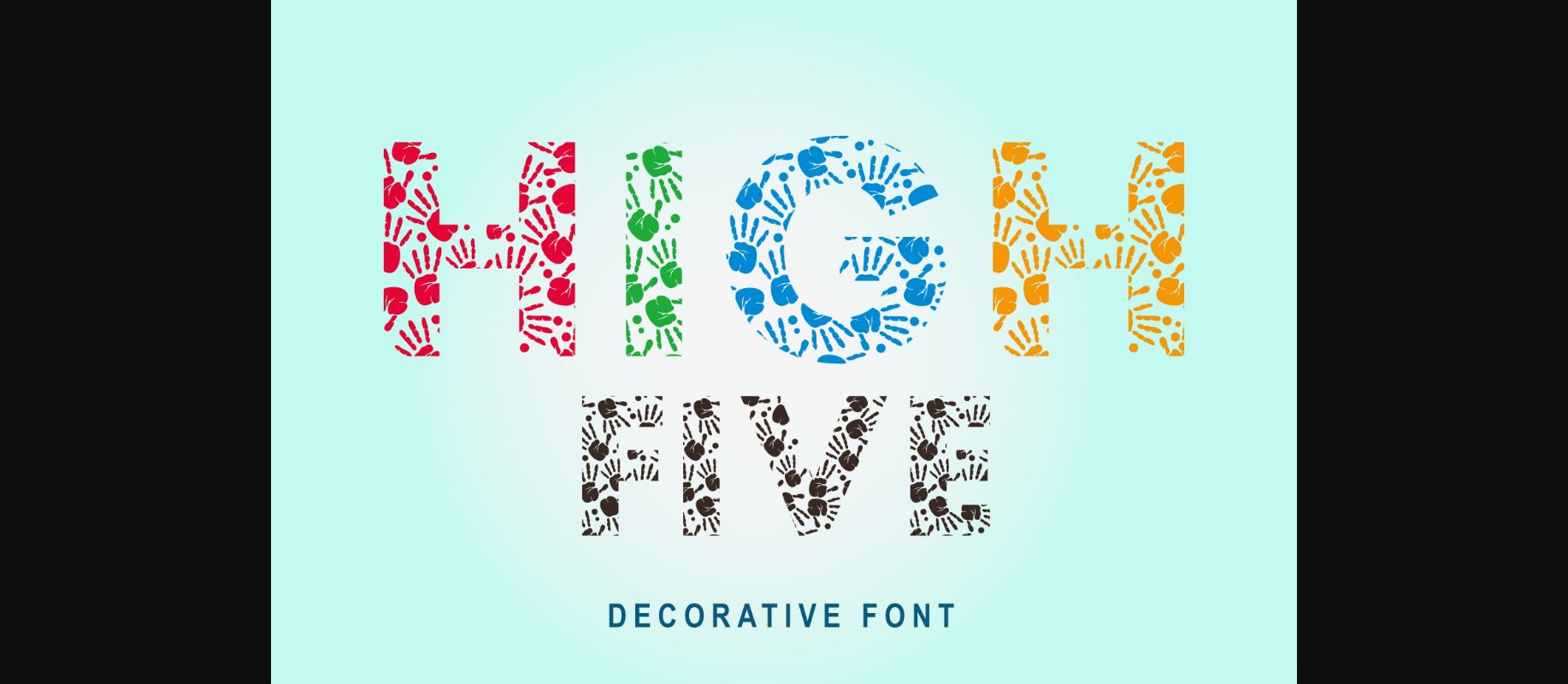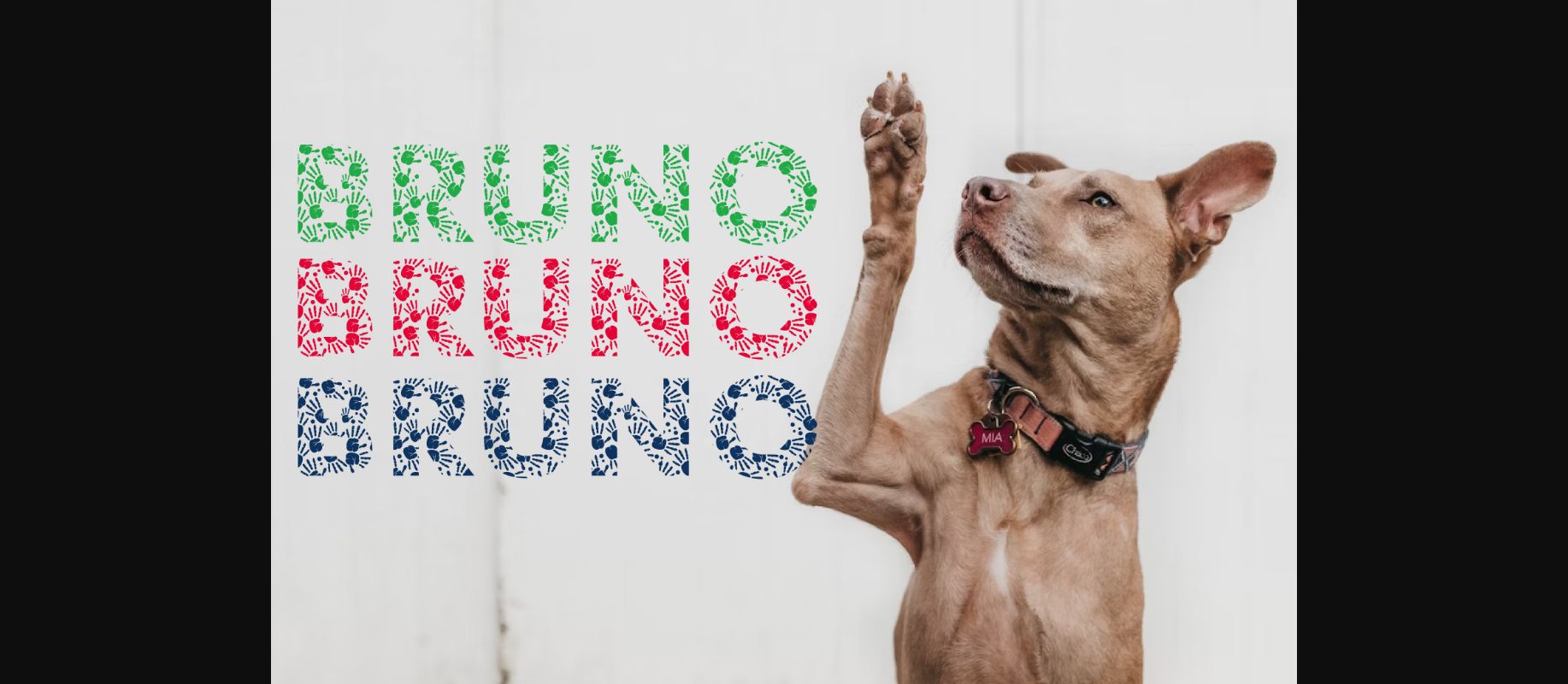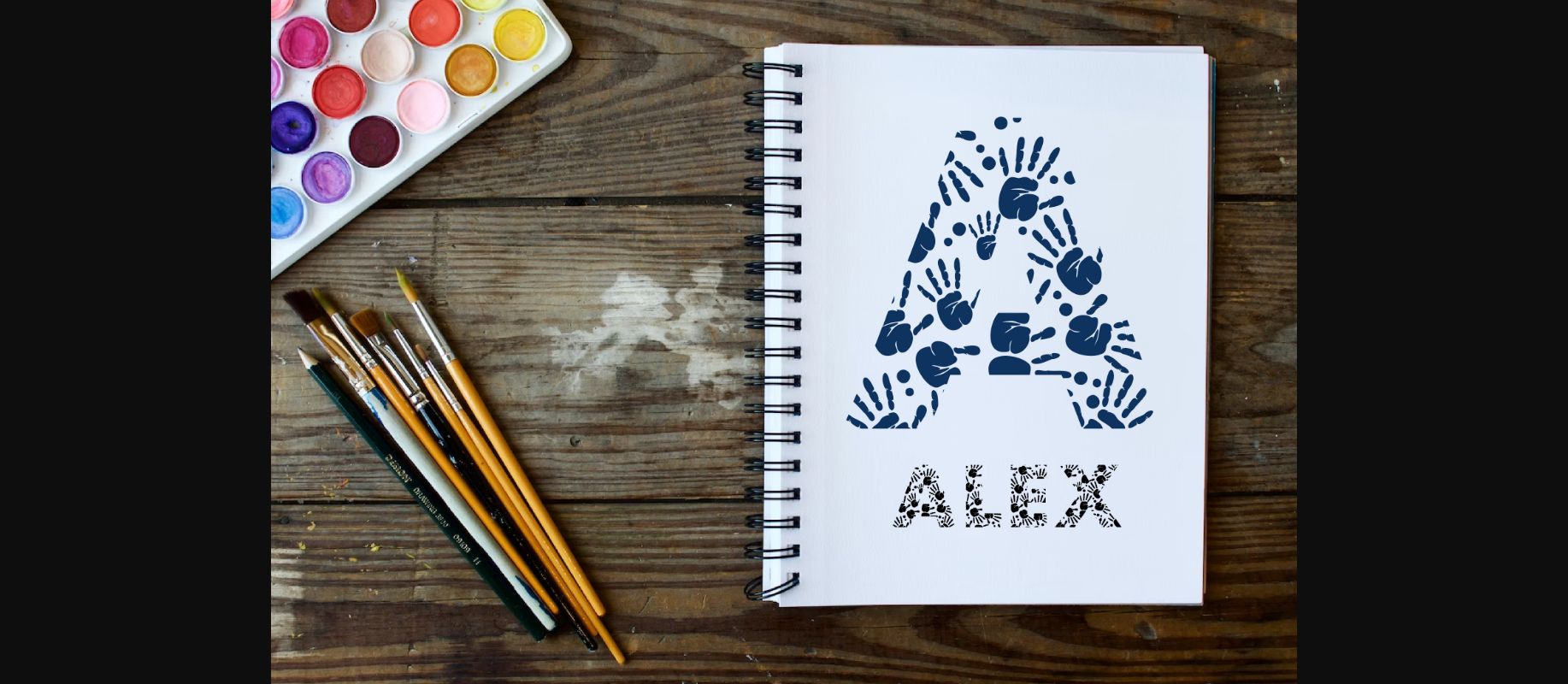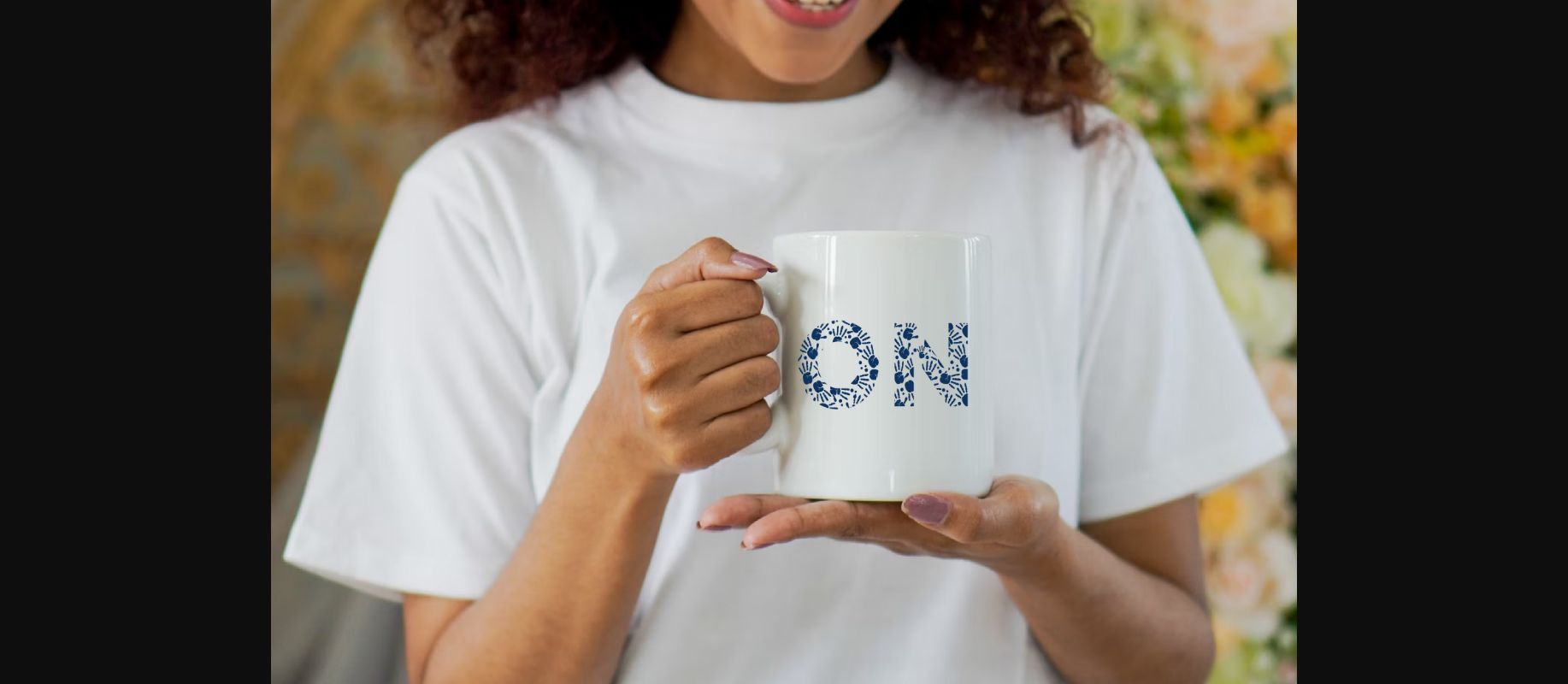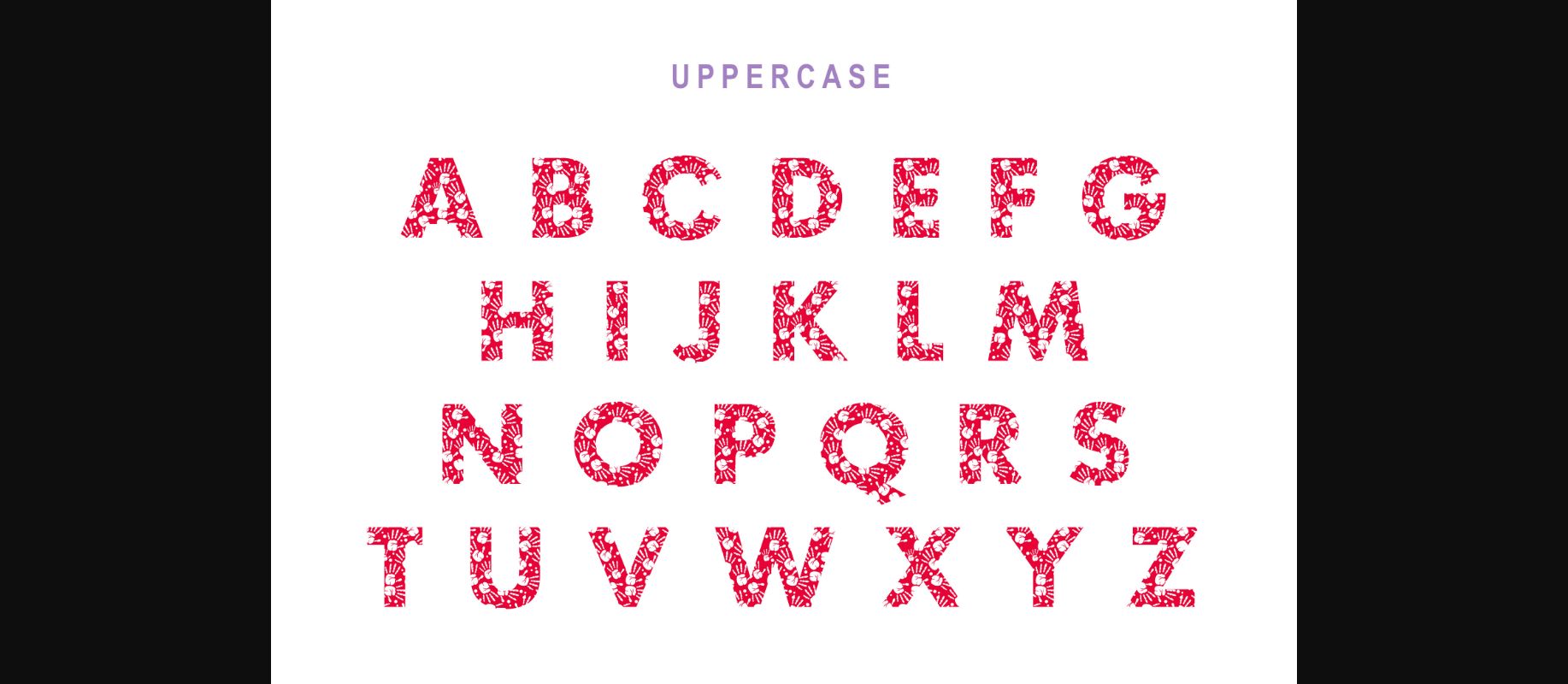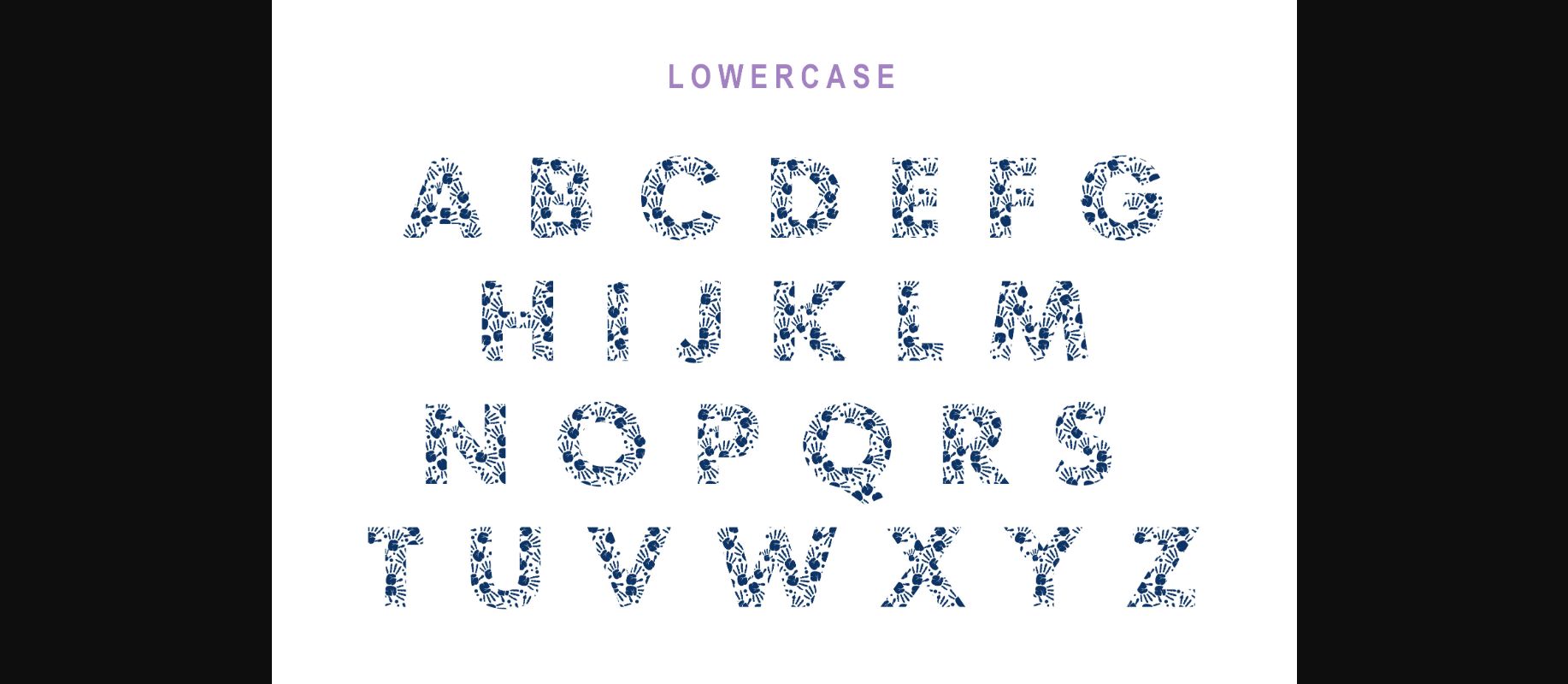
High Five Font
About High Five Font
High Five is a unique and cute decorative font. It can be used in your new projects such as t-shirt designs, posters, book covers, and much more.